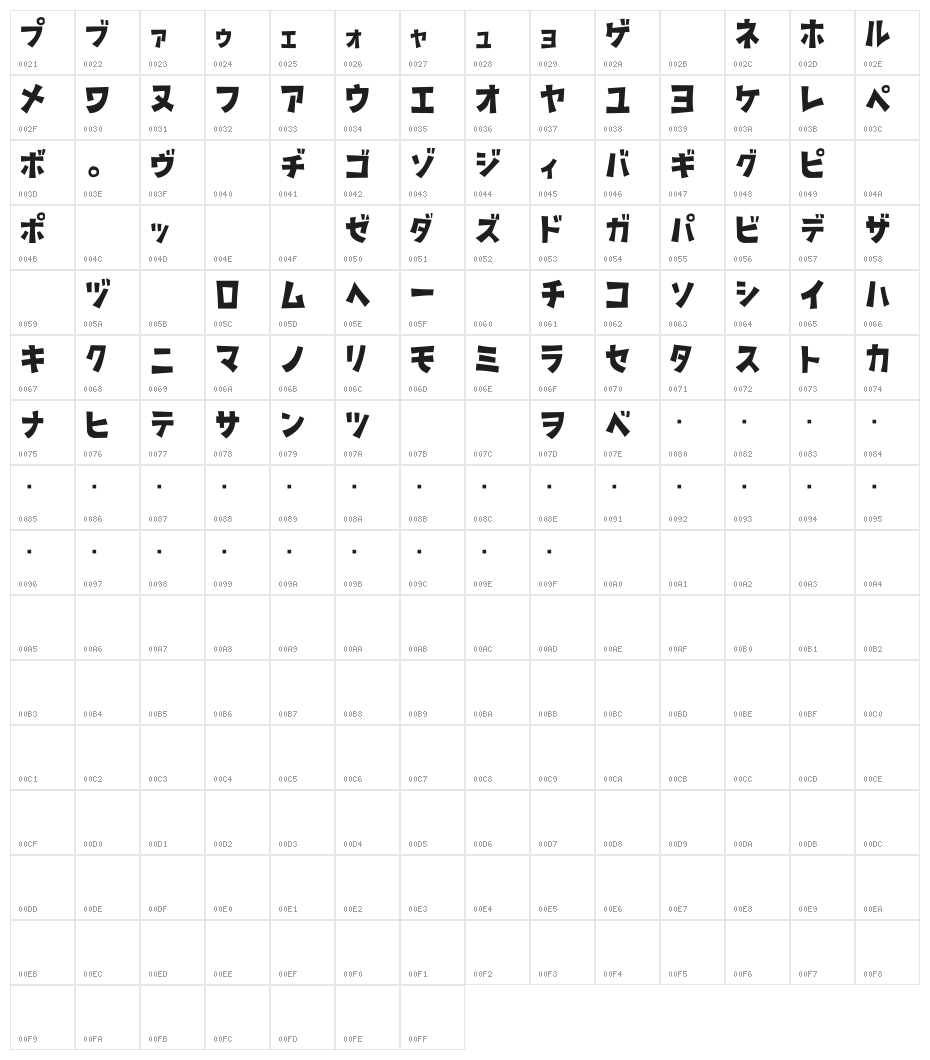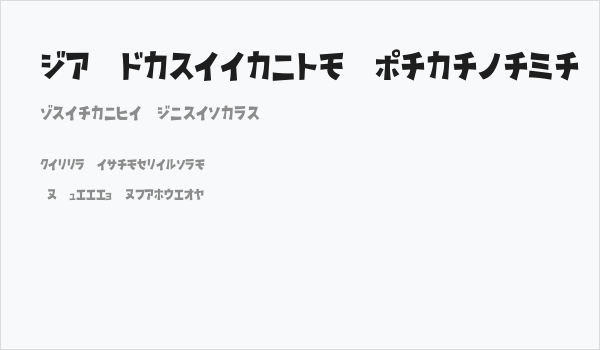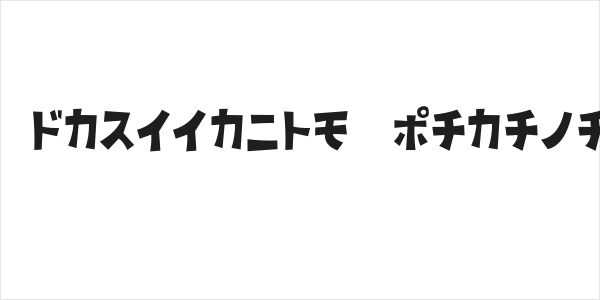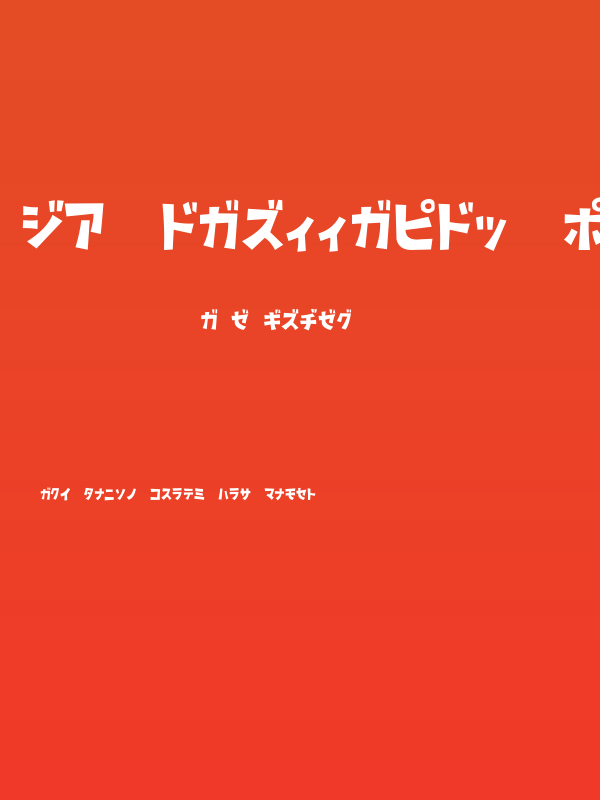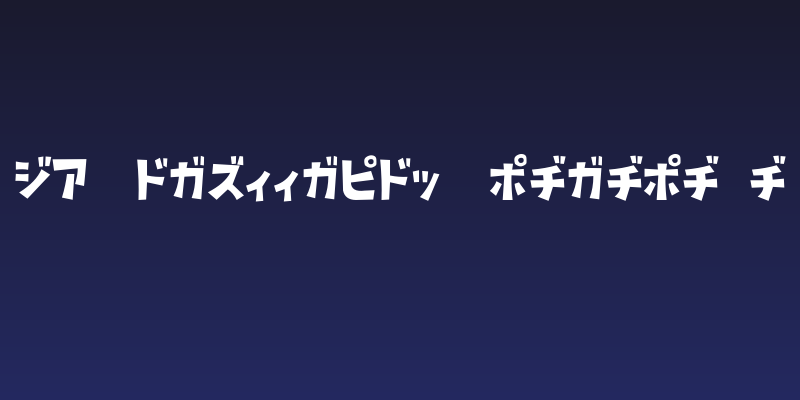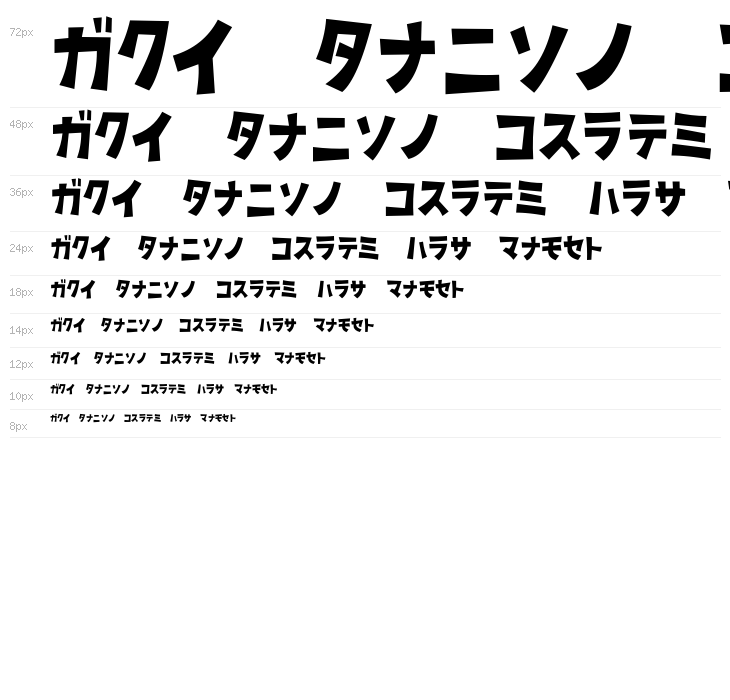
D3 Streetism Katakana Font
D3 Streetism Katakana Description
This font features bold, angular characters with a strong presence, reminiscent of street art and urban design. The characters are sharply defined, with a slightly condensed appearance, giving them a compact and impactful look. The strokes are thick and consistent, providing a uniform and cohesive style across all characters. This font is designed to stand out, making it ideal for attention-grabbing headlines or titles. The overall aesthetic is modern and edgy, suitable for projects that require a bold and assertive visual statement.
| Overall Style | Modern, Urban |
| Proposed Projects | Ideal for streetwear branding, urban-themed posters, and edgy graphic design projects. |